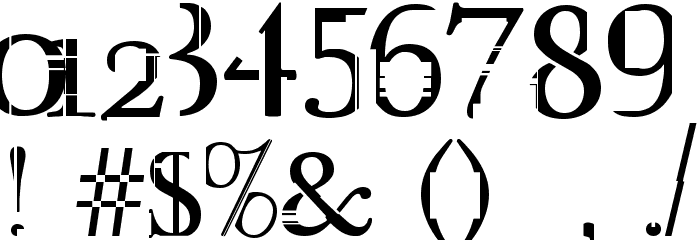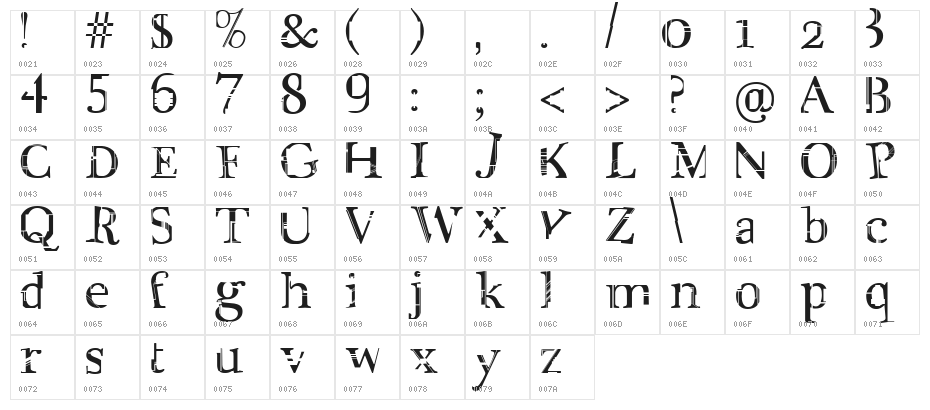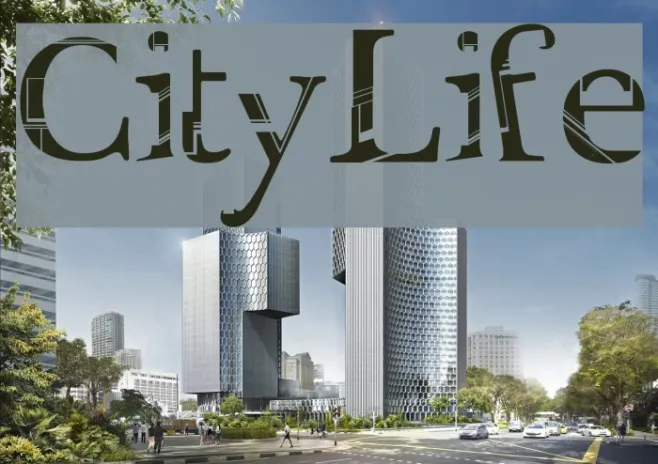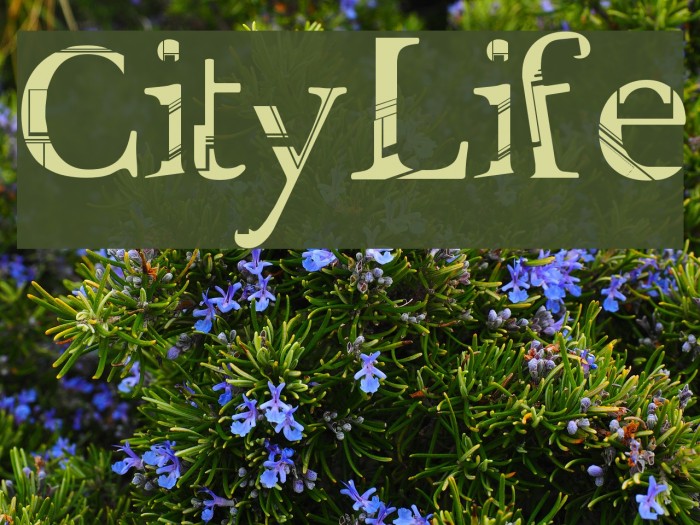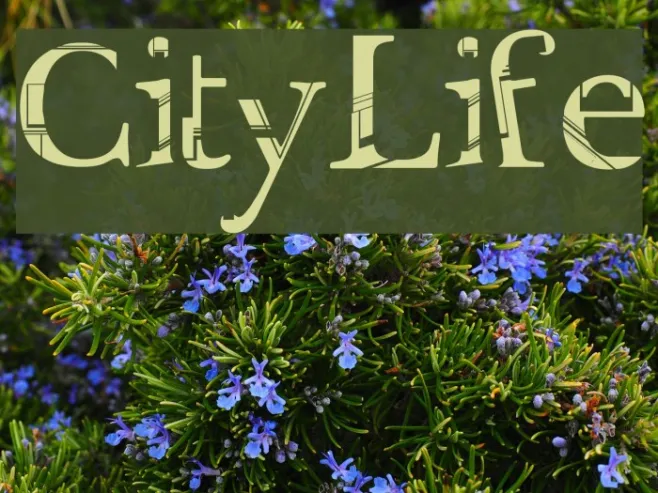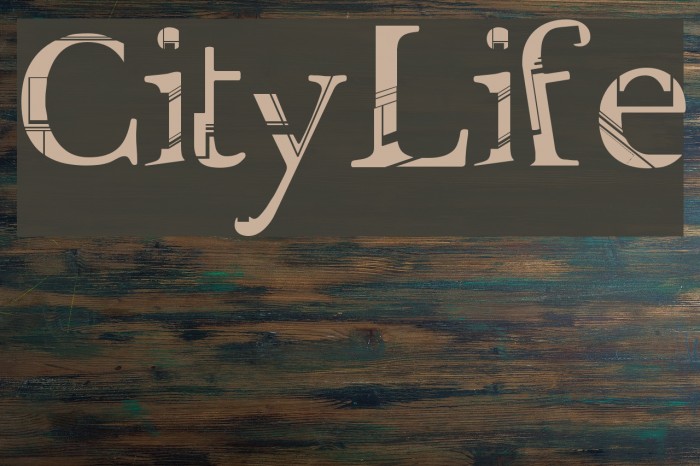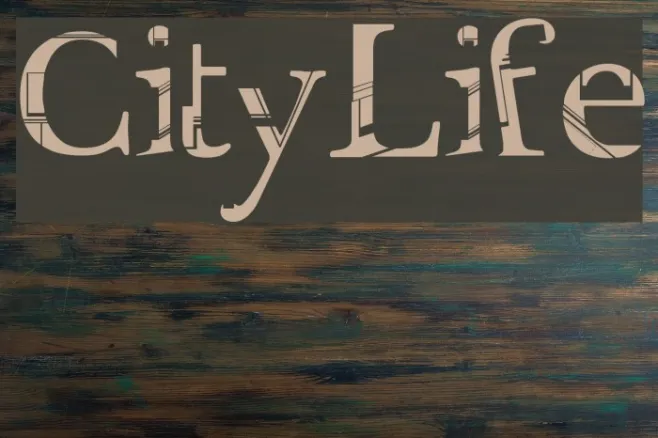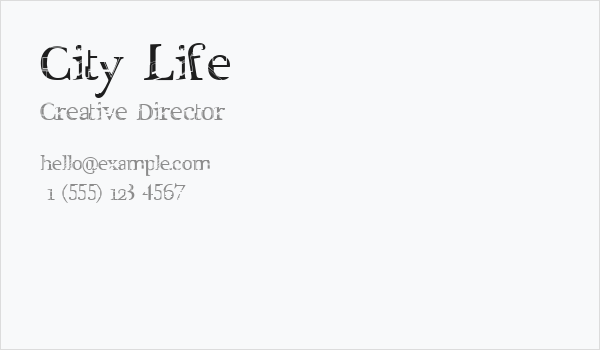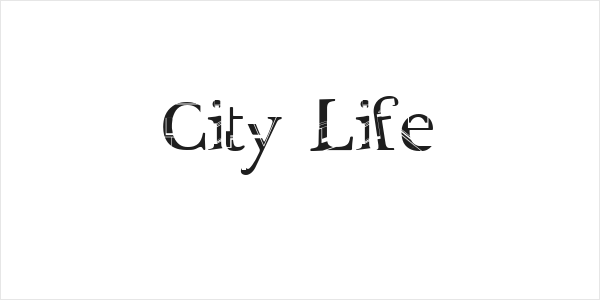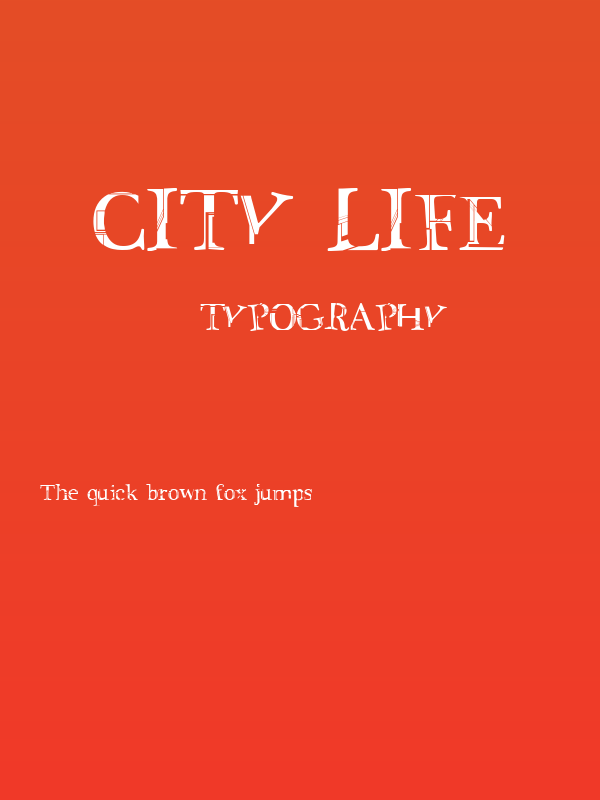
City Life Font
City Life Description
This font features a unique blend of modern and decorative elements, characterized by its bold, artistic strokes and intricate detailing within each character. The uppercase letters exhibit a strong presence with their bold lines and distinctive cut-out patterns, creating a sense of movement and dynamism. The lowercase letters maintain this artistic flair, offering a cohesive look that is both eye-catching and sophisticated. The numerals and special characters follow the same design principles, ensuring consistency across all glyphs. This font's high contrast between thick and thin strokes adds to its dramatic appeal, making it suitable for creative and impactful design projects.
| Proposed Projects | Ideal for branding, poster design, album covers, and any project requiring a bold, artistic touch. |